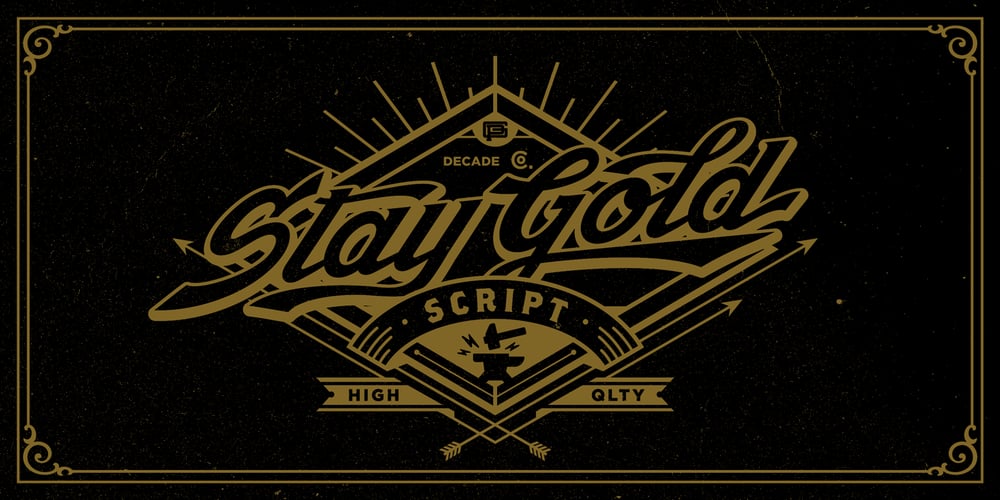
Stay Gold
Stay Gold font
Stay Gold Font Family was designed by published by Decade Typefoundry. Stay Gold contains 1 styles and family package options. Stay Gold Script is a highly usable, powerful typeface. Perfect for everything from street wear brand to wedding invitations, sports team logos to band logos. Use it however you see fit. Just one thing – it’s not designed for all-caps settings.